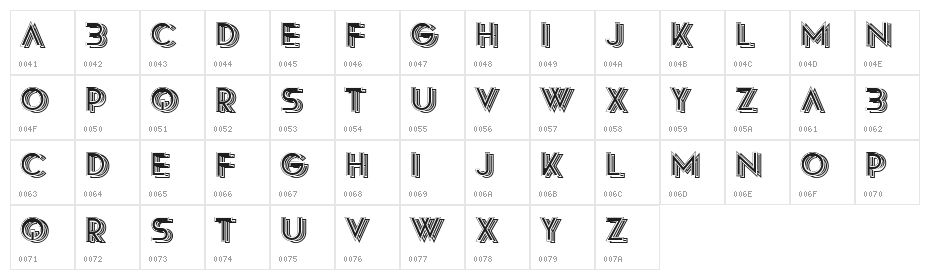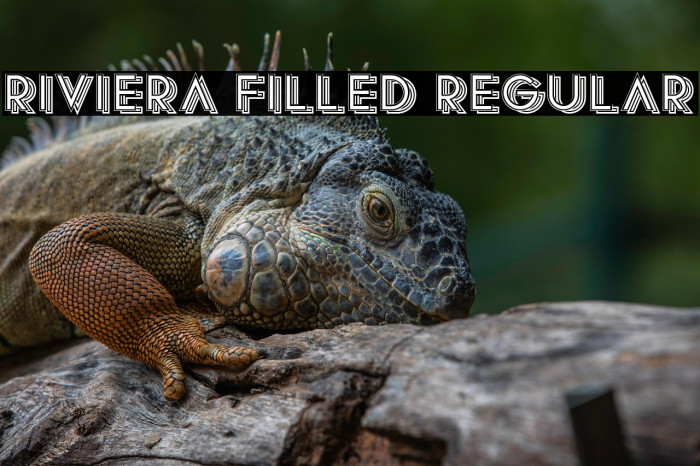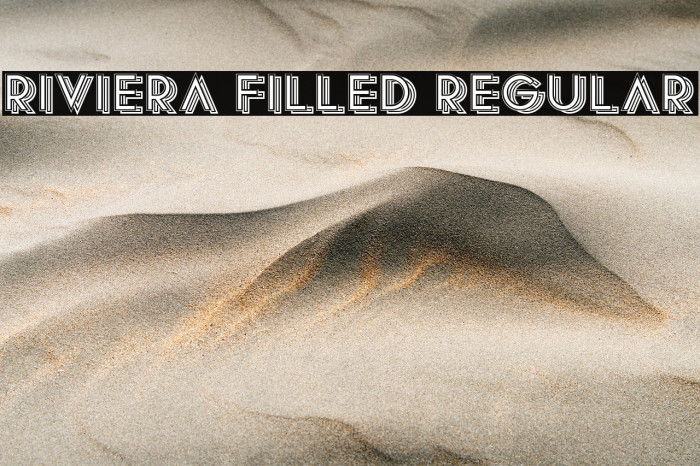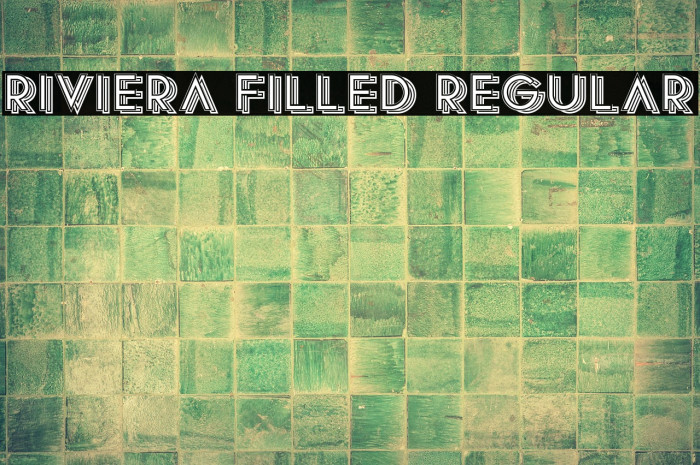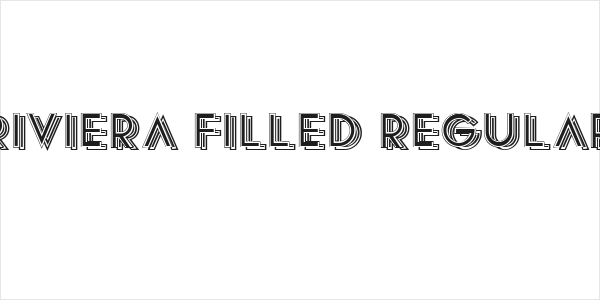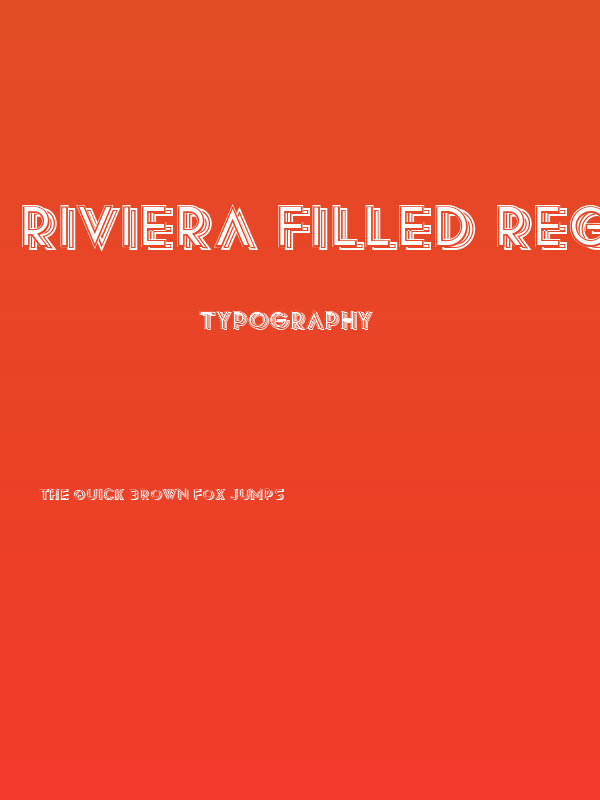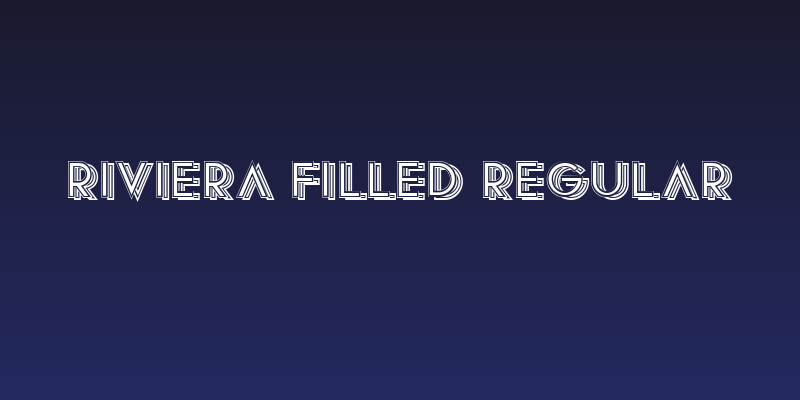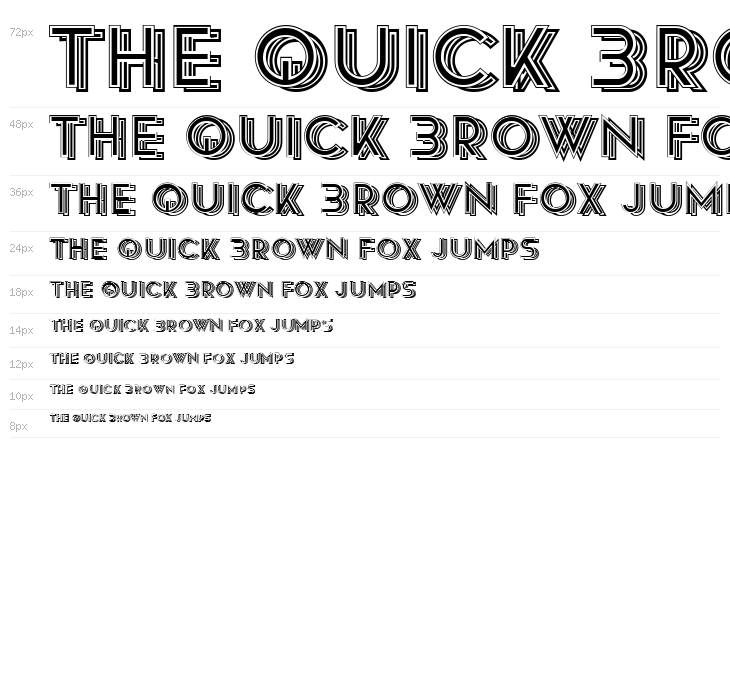
Riviera Filled Regular Font
Riviera Filled Regular Description
This font features a bold and striking geometric design with a filled pattern that creates a sense of depth and dimension. The characters are constructed with multiple lines and shapes, giving them a layered appearance. The uppercase letters are particularly eye-catching, with sharp angles and a modern aesthetic. The overall style is decorative and highly stylized, making it ideal for projects that require a strong visual impact. The font's unique structure and filled elements make it stand out, offering a contemporary twist on traditional letterforms.